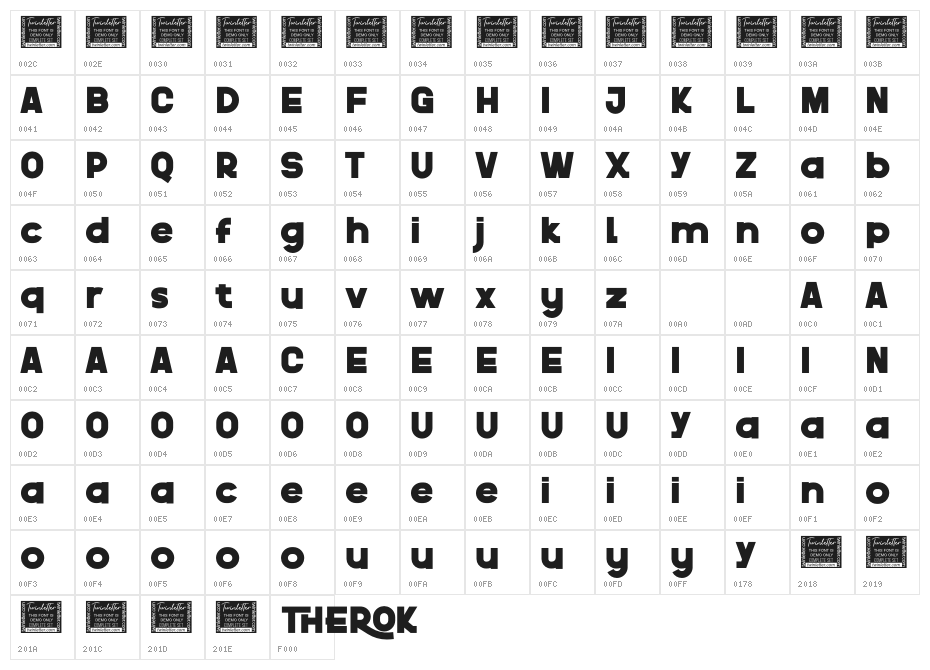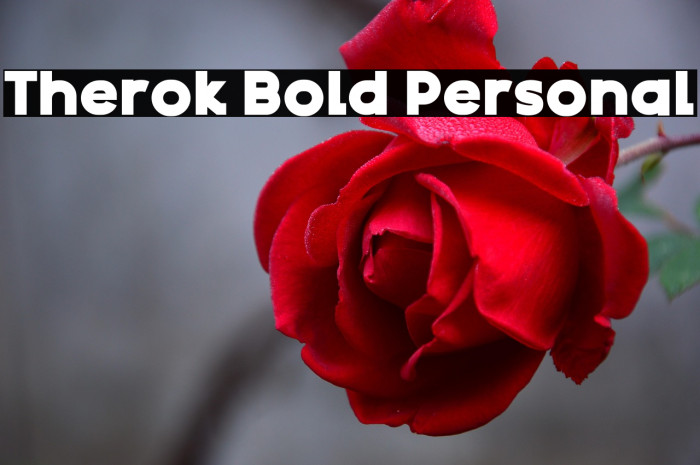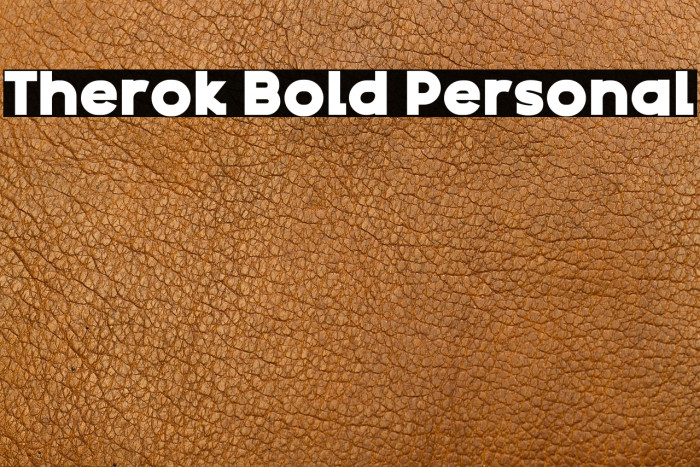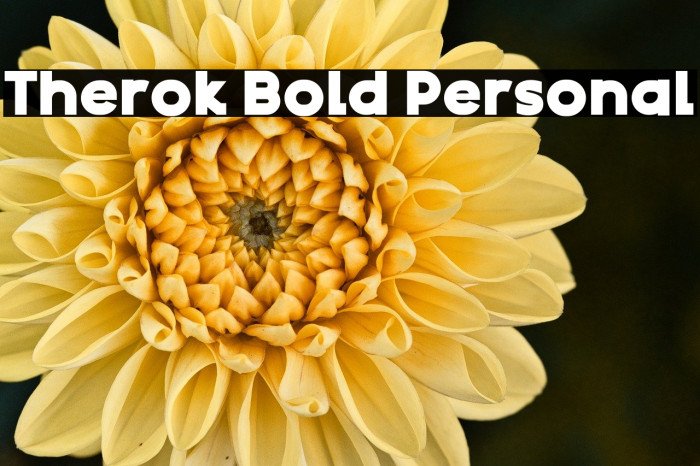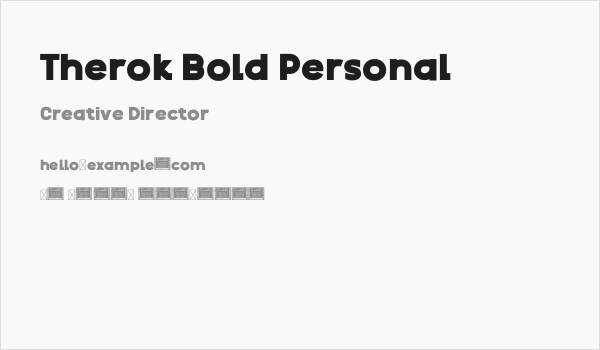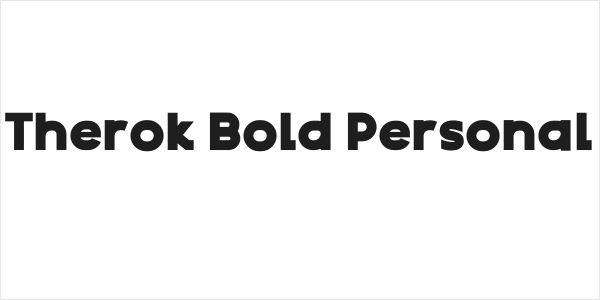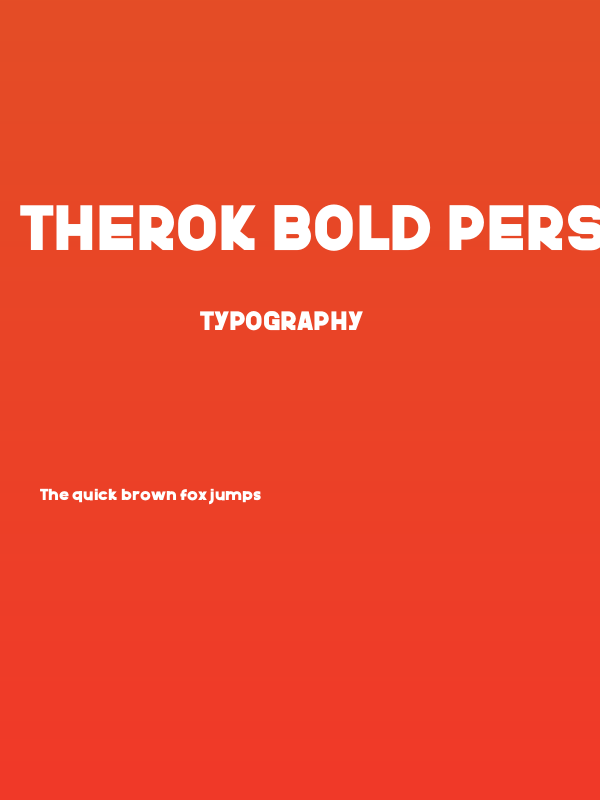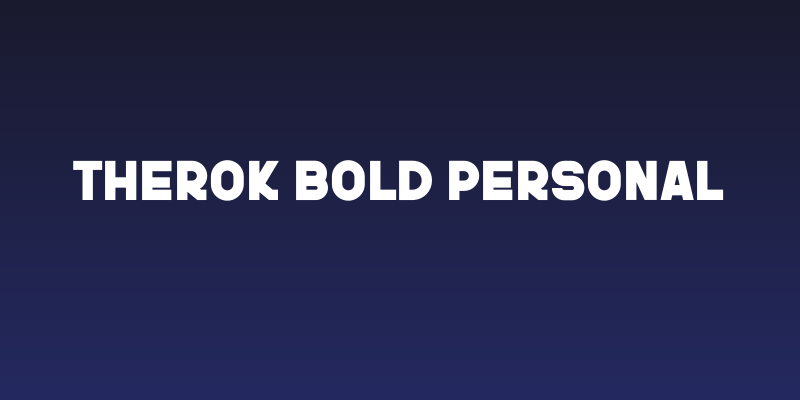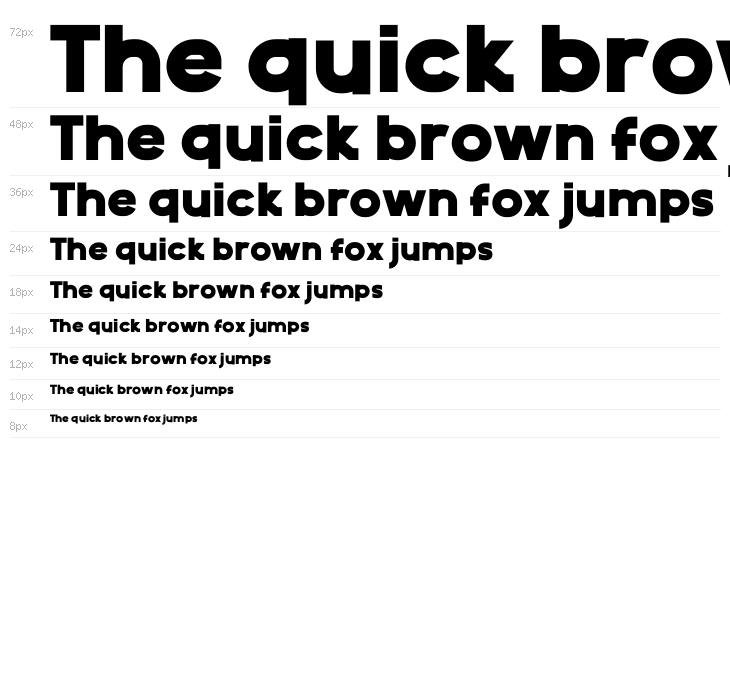
Therok Bold Personal Font
Therok Bold Personal Description
This font features bold, geometric letterforms with a strong presence. The uppercase and lowercase characters maintain a consistent weight, creating a uniform appearance. The design is clean and modern, with straight lines and sharp angles that give it a contemporary feel. The characters are well-balanced, with even spacing that enhances readability. This font is ideal for making a bold statement, whether in print or digital media. The numerals and special characters are designed to match the boldness of the alphabet, ensuring a cohesive look across all text elements.
| Proposed Projects | Ideal for branding, headlines, posters, and digital media where a strong, modern presence is desired. |